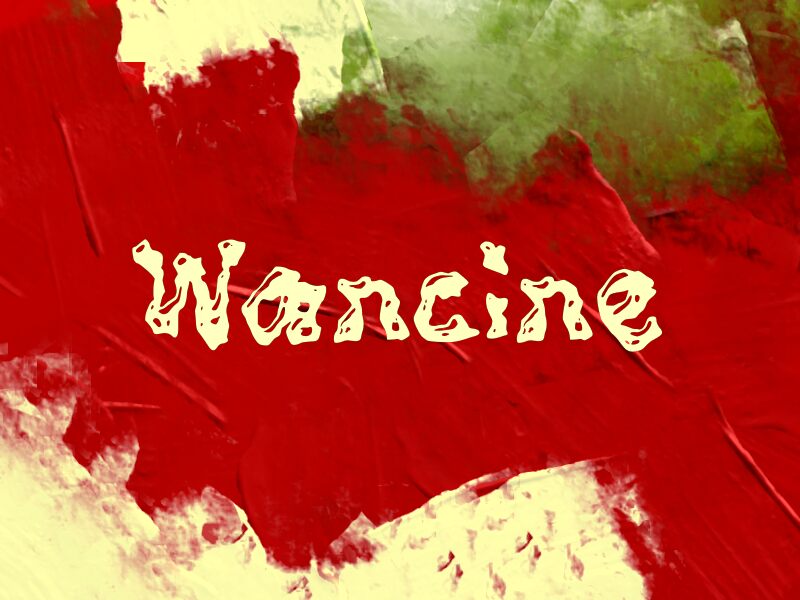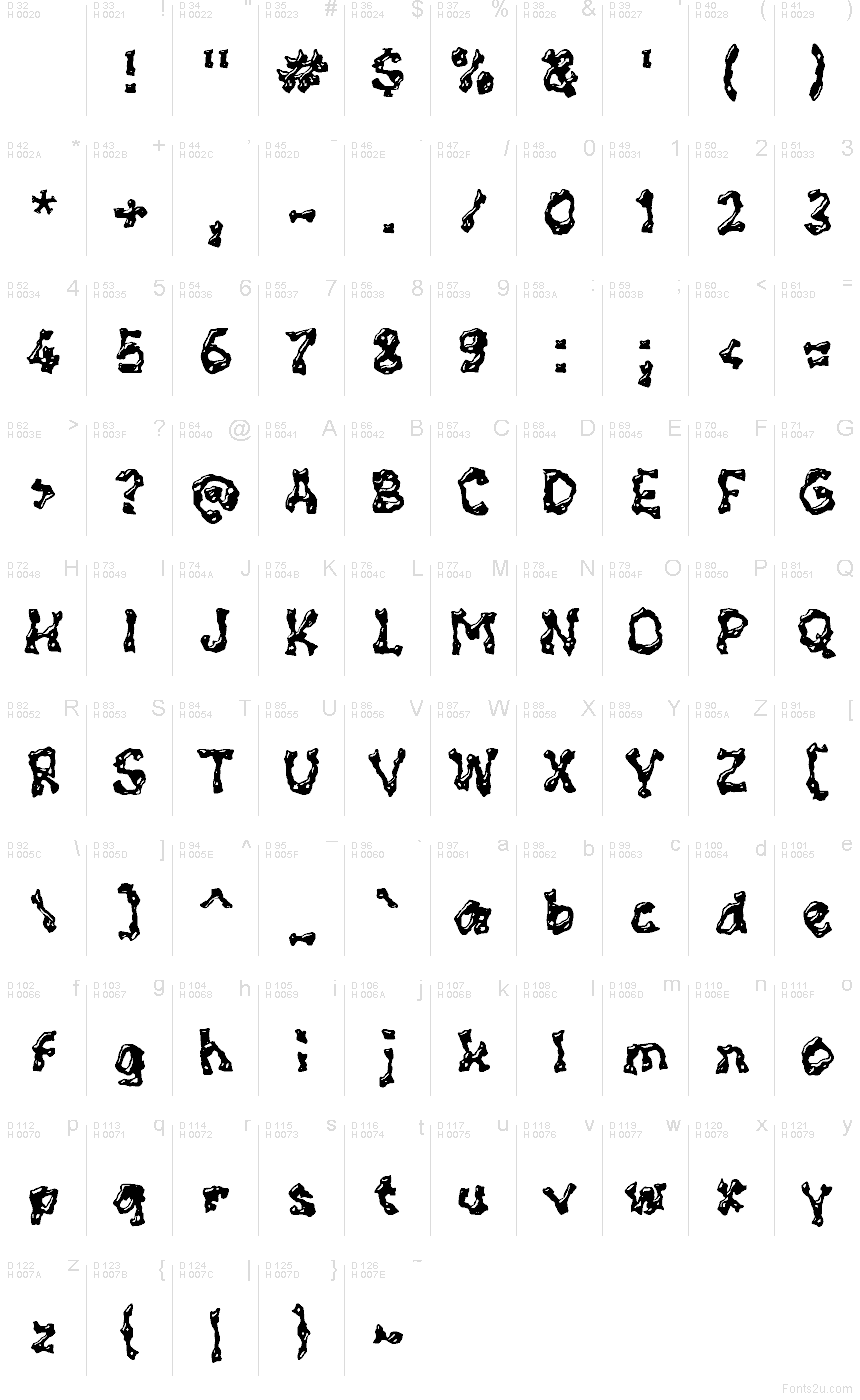
Wancine by wep is a free slime-distorted display font with a horror-comic wobble. The letters look swollen, drippy, and uneven, as if they were pulled from wet ink or soft rubber, with ragged openings and sagging contours that keep the whole font feeling restless and a little gross in a fun way.
That makes it a natural pick for poster titles, spooky event flyers, game splash screens, zine covers, and merch graphics where a free font can carry the mood before any illustration does. It works best in short bursts - big headers, title cards, and logo-sized words - because the gooey silhouette is the message.
Wancine